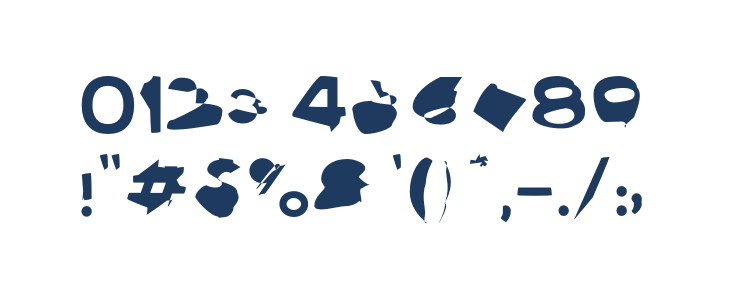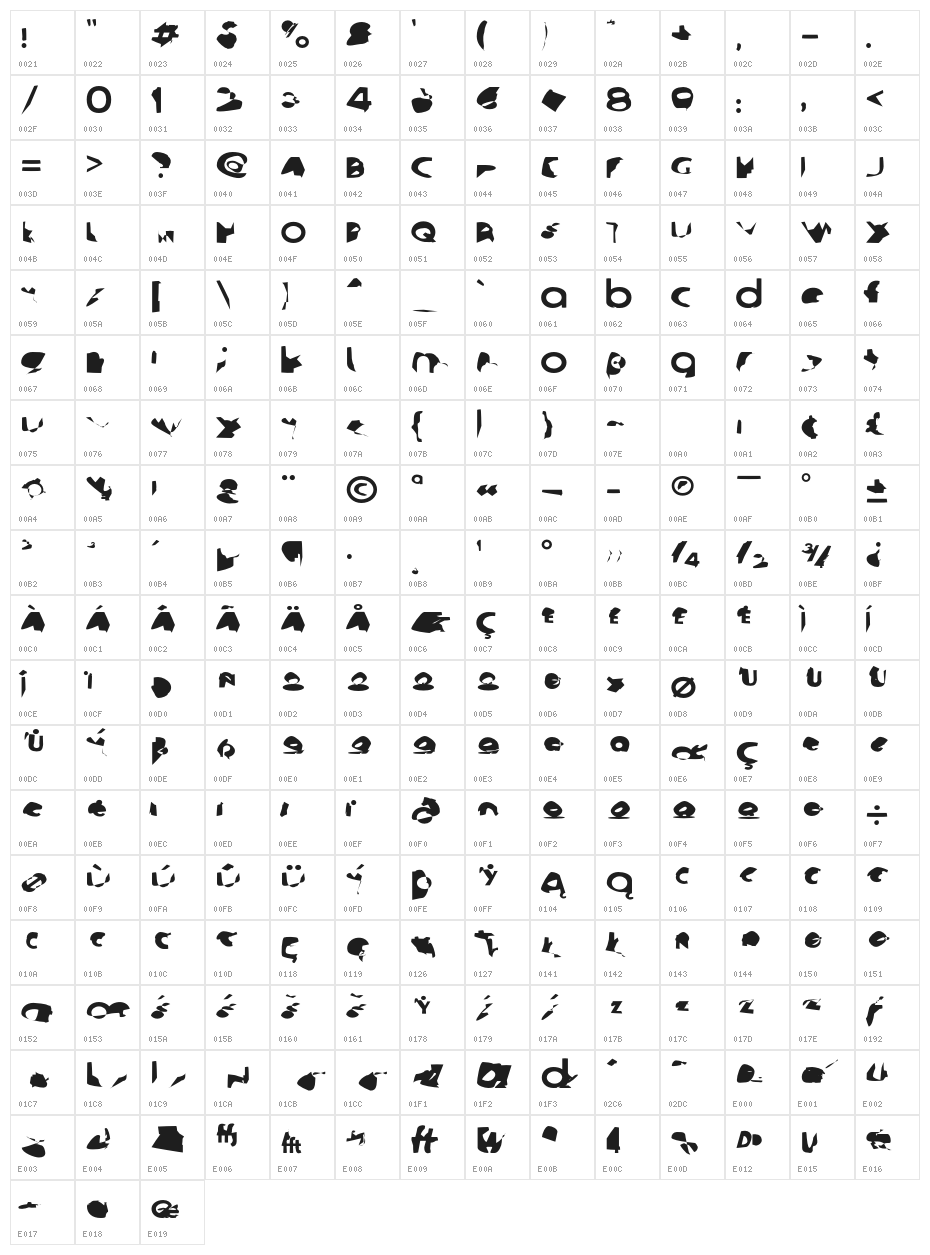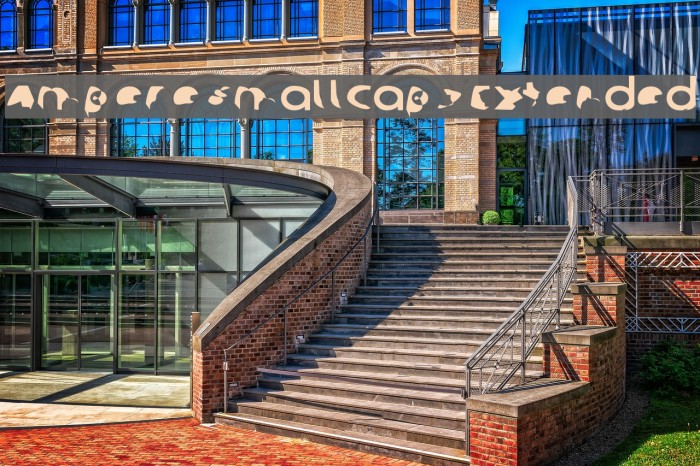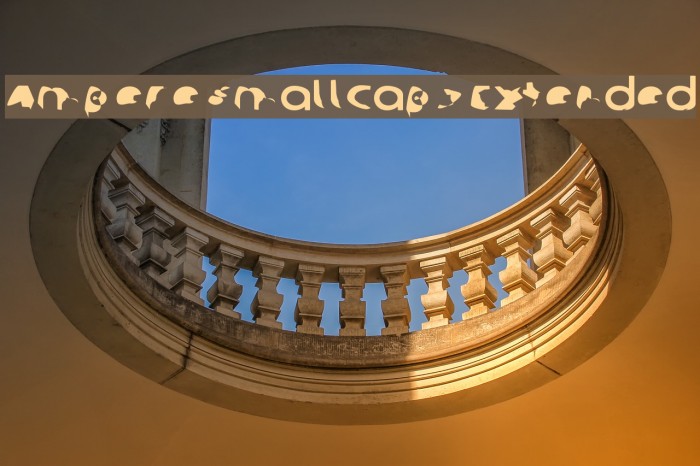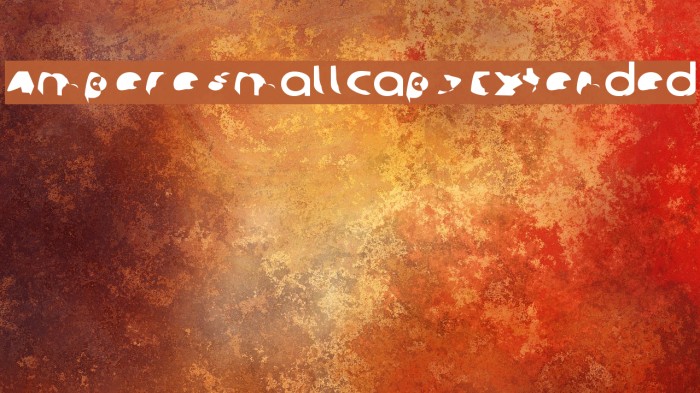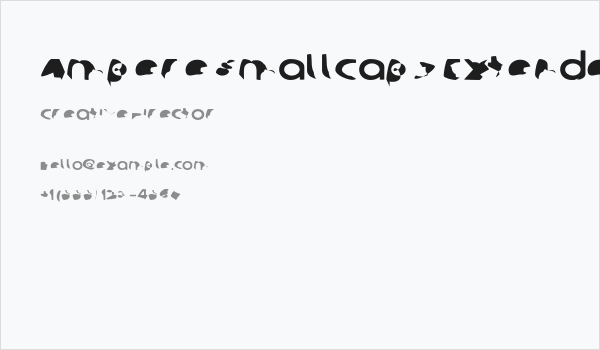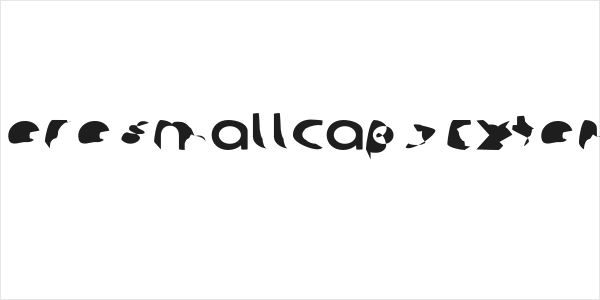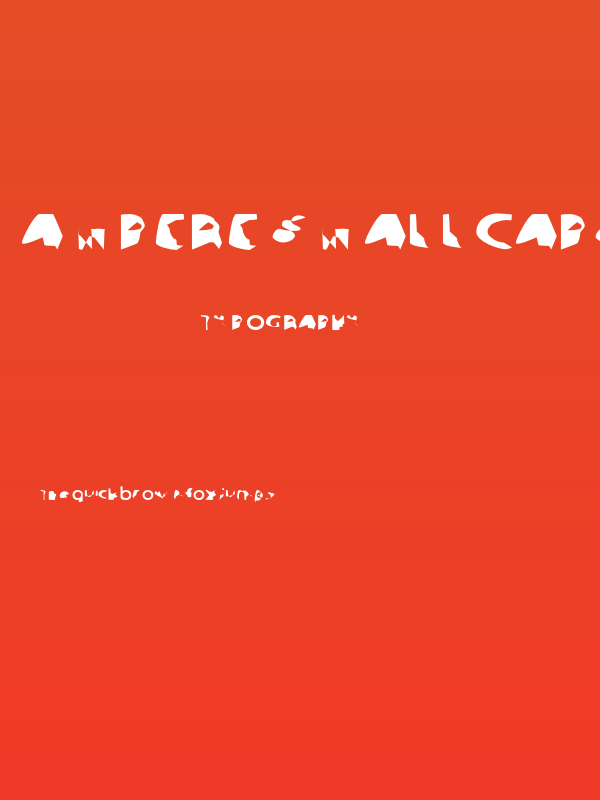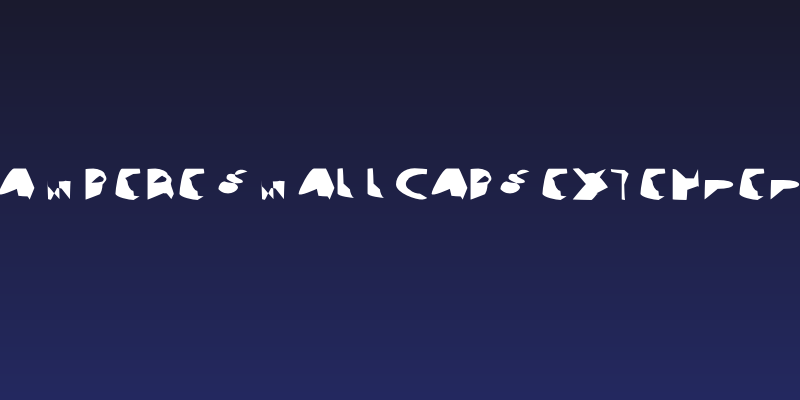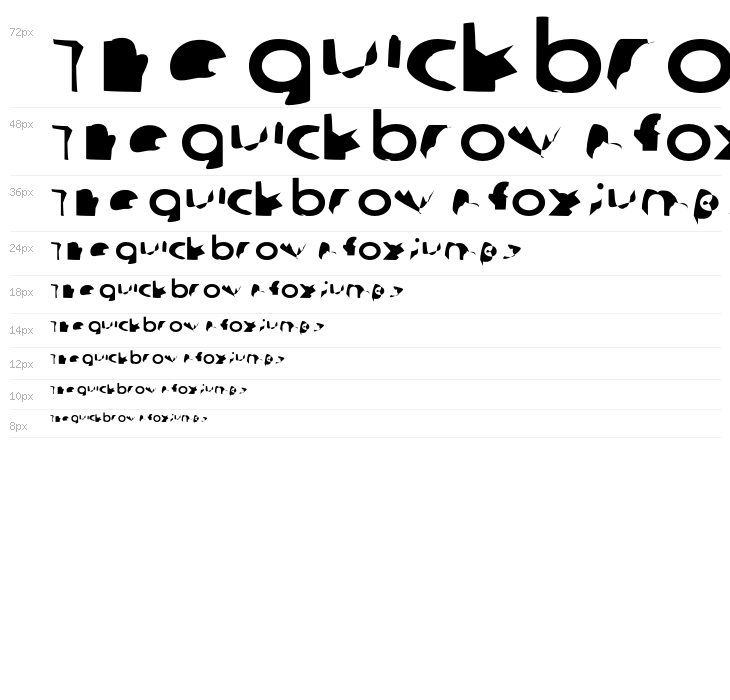
Ampere SmallCaps Extended Font
Ampere SmallCaps Extended Description
This font exhibits a highly abstract and fragmented design, characterized by its bold and irregular shapes. The characters are creatively distorted, giving an impression of a shattered or broken appearance. Each letterform is unique, with varying degrees of fragmentation, creating a dynamic and visually intriguing effect. The font maintains a consistent weight throughout, with thick strokes that contribute to its bold presence. Despite its unconventional style, the characters remain recognizable, making it suitable for artistic and experimental projects. The font's distinctiveness lies in its ability to capture attention and convey a sense of chaos and creativity.
| Overall Style | Modern, Abstract |